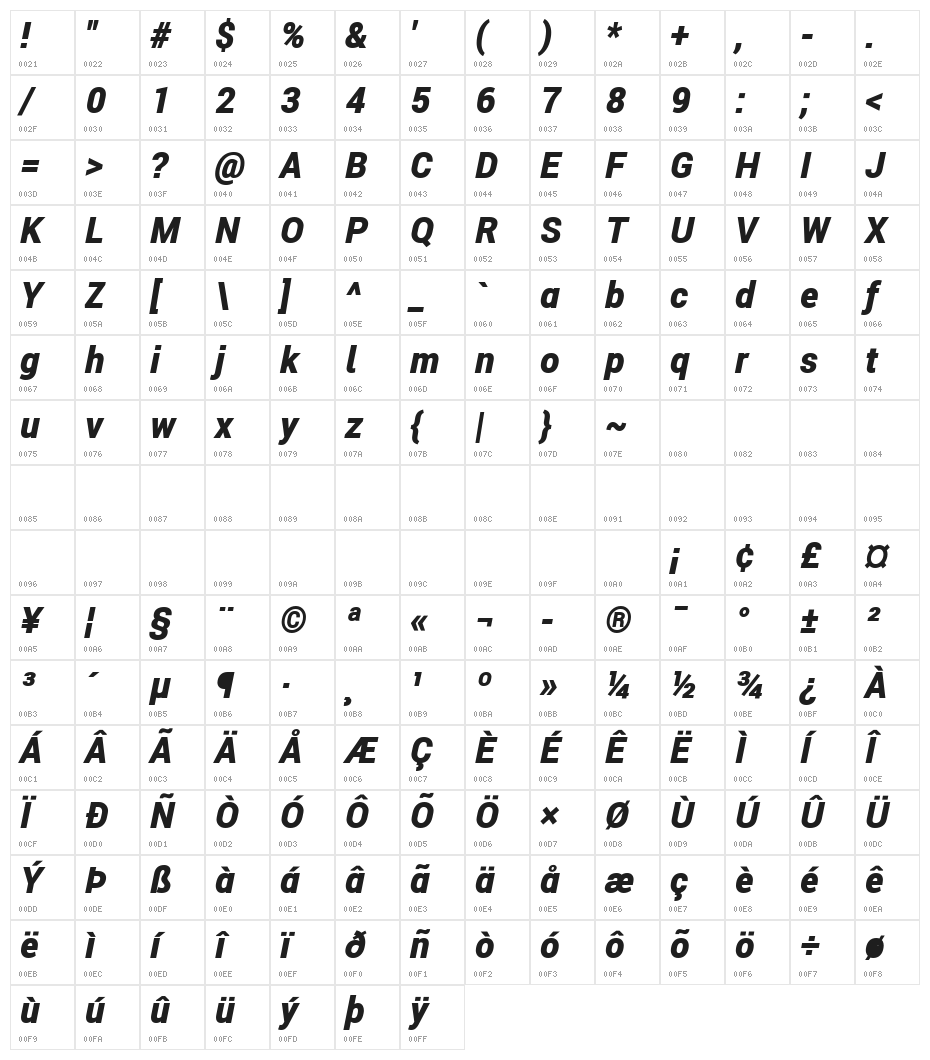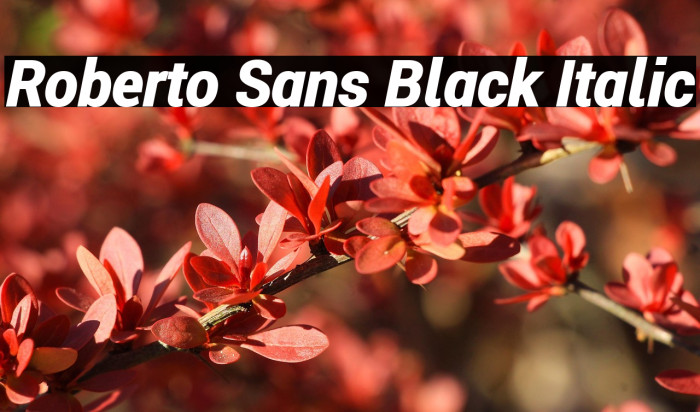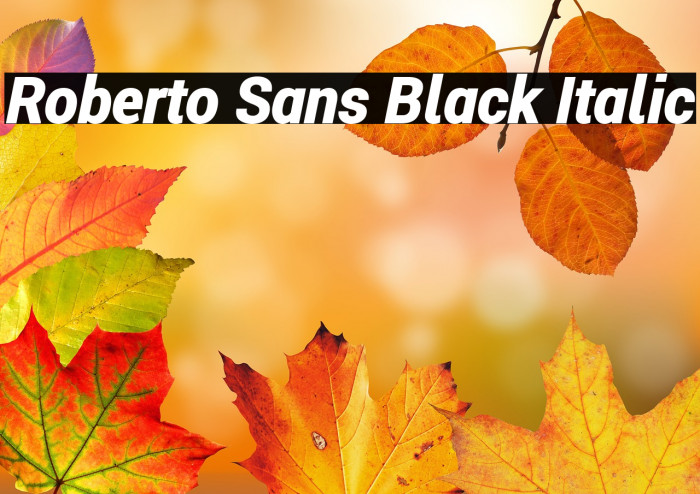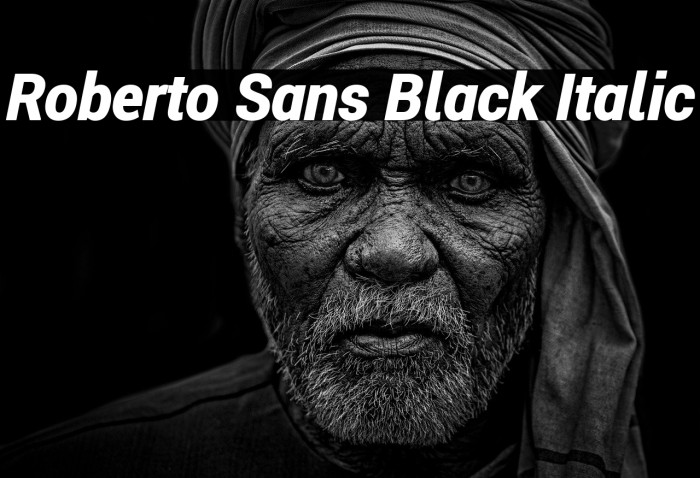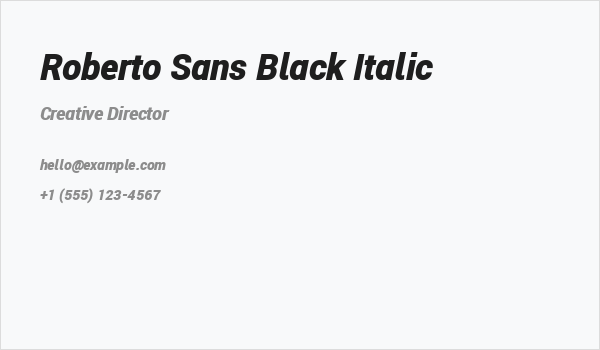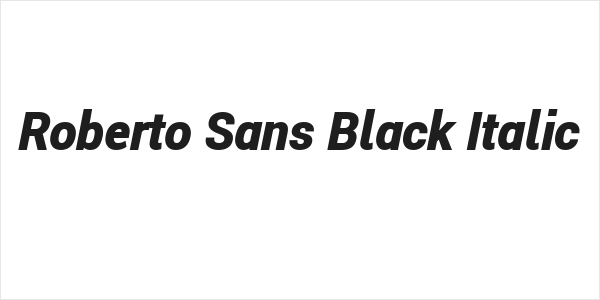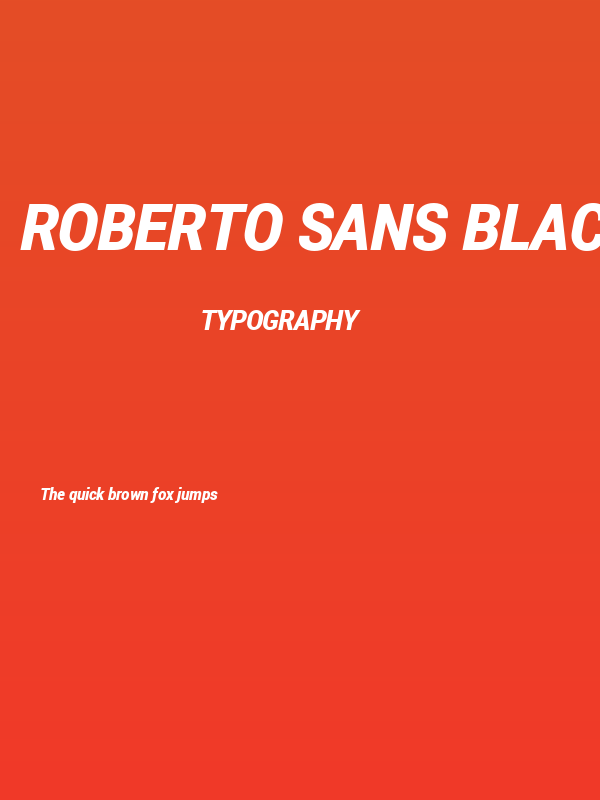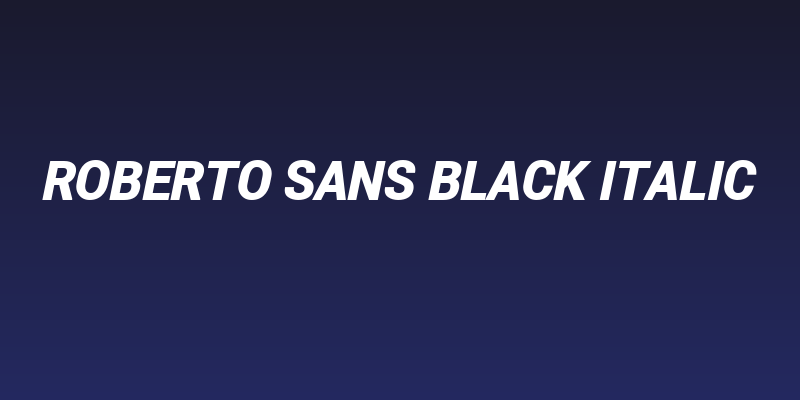
Roberto Sans Black Italic Font
Roberto Sans Black Italic Description
This typeface is a bold and dynamic sans-serif with a strong presence. The italic style adds a sense of movement and urgency, making it ideal for attention-grabbing headlines. Its thick strokes and uniform weight provide a solid and confident appearance. The characters are well-balanced with a slight slant, enhancing readability while maintaining a modern aesthetic. The font includes a full set of uppercase and lowercase letters, numerals, and a variety of punctuation marks and special characters. Its design is clean and versatile, suitable for both digital and print media.
| Use Case | Headlines, Logos, Advertising |
| Proposed Projects | Ideal for branding, advertising, headlines, and digital media where a strong, modern impact is desired. |